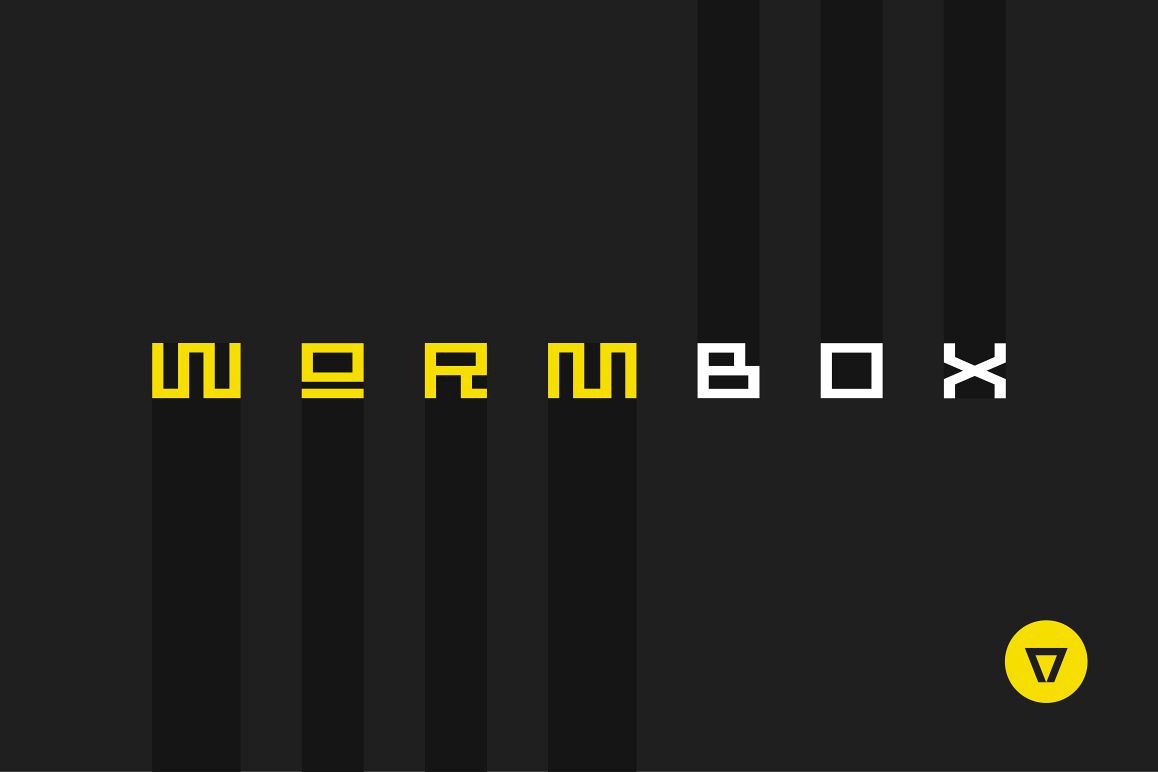
Wormbox
Wormbox-Rounded
Wormbox-Sharp
Wormbox is a fixed height modular font. Play with uppercase and lowercase to create unique wordmarks and titles.